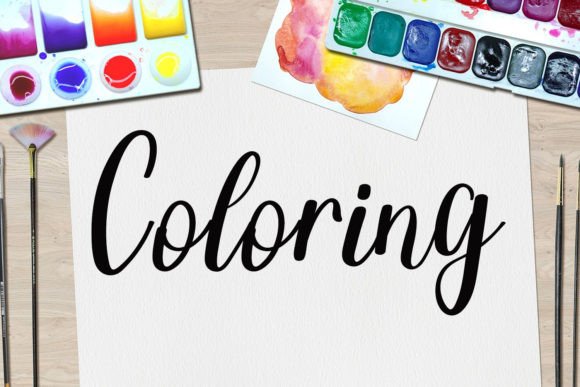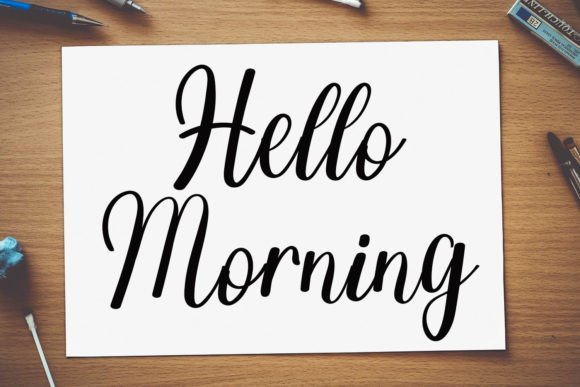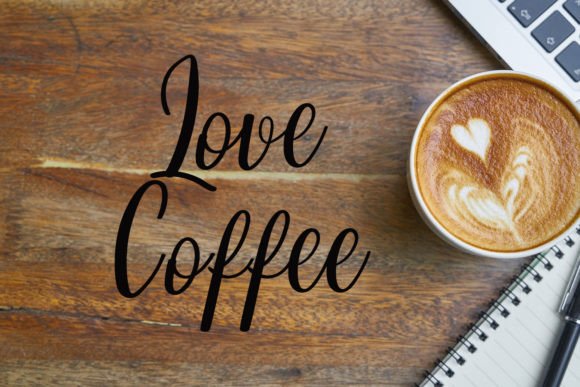
Have you ever sat in front of a blank page, staring at a sea of empty space, and suddenly felt a surge of inspiration? For designers, this moment is a thrill unlike any other. It’s the spark that sets off a chain reaction of creativity, leading to innovative ideas and beautiful designs.
One tool that can help bring your ideas to life is the Alabba Font, a stunning handwritten font designed to add a touch of elegance to your projects. Whether you’re creating banners, mockups, logos, or wedding invitations, this font is sure to make your designs stand out. Its versatility and beauty make it a valuable asset for designers, allowing you to express your creativity and bring your vision to life.
Alabba Font Key Features
- Unique Characteristics: Alabba Font features a distinctive, modern design with a blend of geometric and organic elements, making it perfect for creative and innovative projects.
Alabba Font Review
Overall, I found Alabba Font to be an interesting and unique addition to any design project. Here are a few things that stood out to me:
- ✨ Highly legible, even at small font sizes, making it a great choice for body text.
- ✨ The font’s distinctive aesthetic makes it a great choice for projects where you want to add a touch of personality.
- ✨ It’s available in a wide range of weights, making it easy to customize to suit your needs.
- ⚠️ The font may not be suitable for projects where a more formal or traditional look is required.
- ⚠️ Some of the more ornate weights may be difficult to read in certain contexts.
Overall, I think Alabba Font is a great choice for designers who want to add a touch of whimsy to their projects. While it may not be suitable for every project, it’s a versatile and highly legible font that’s definitely worth considering.
Tips for Getting the Most Out of Alabba Font
For best results, use Alabba Font in conjunction with bold or italic text to create visual interest.
Use Alabba Font to create a cohesive brand identity by applying it consistently across all your marketing materials.
Experiment with different font sizes and colors to create a unique visual style.
Alabba Font is ideal for use in:
Headlines and titles
Body text in brochures and flyers
Social media posts and advertisements
Alternatives to Alabba Font
Great Vibes is a modern, elegant script font that is perfect for creating a unique and eye-catching design. It is ideal for use in headings, titles, and other high-impact text. Great Vibes is a great alternative to Alabba Font because it offers a similar elegant and stylish feel, but with a more refined and sophisticated look.
Comparison: Great Vibes has a more refined and elegant feel compared to Alabba Font, making it a great choice for high-end designs.
Pacifico is a beautiful, cursive script font that is perfect for creating a warm and inviting design. It is ideal for use in headings, titles, and other high-impact text, as well as for creating a sense of relaxation and calmness. Pacifico is a great alternative to Alabba Font because it offers a similar cursive feel, but with a more laid-back and casual vibe.
Comparison: Pacifico has a more relaxed and casual feel compared to Alabba Font, making it a great choice for designs that require a sense of calmness and serenity.